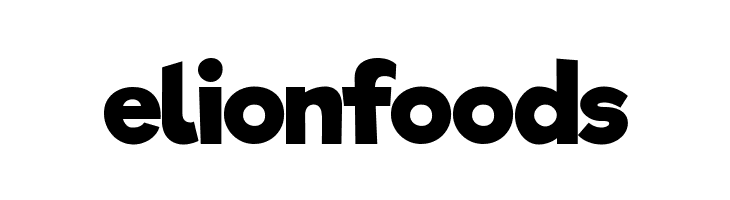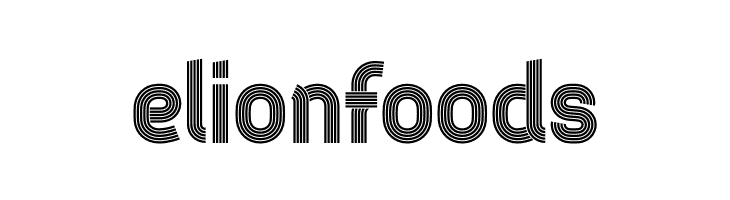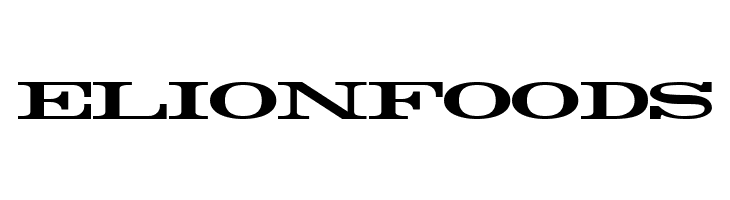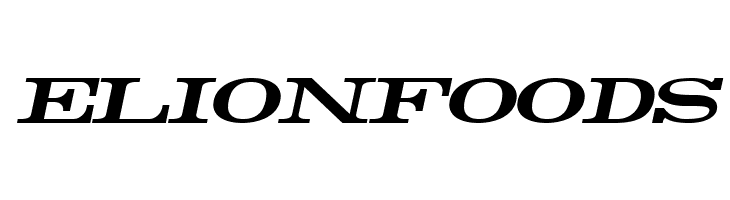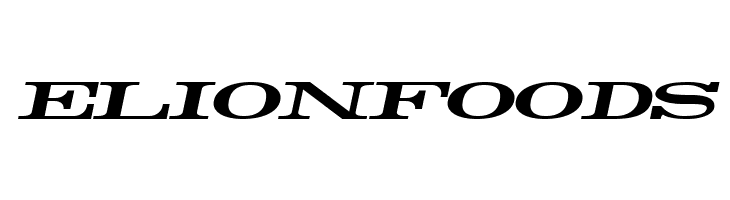
Bold, italic, and expanded font with high contrast and dynamic style.
A bold, ultra-expanded serif font with wide letterforms and high contrast.
A bold, ultra-expanded italic font with a modern and dynamic style.
A bold, geometric font with a distinctive striped pattern.
A bold, geometric font with uniform stroke widths and a modern design.